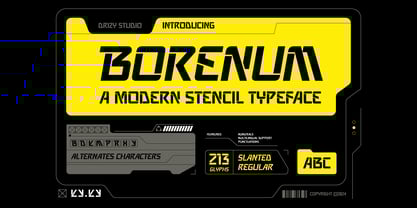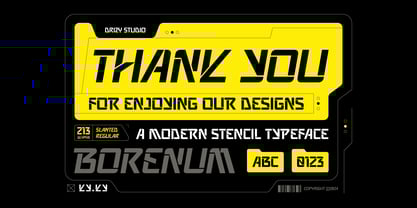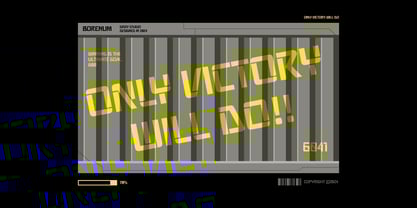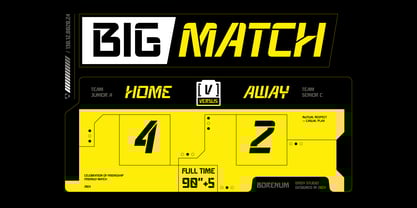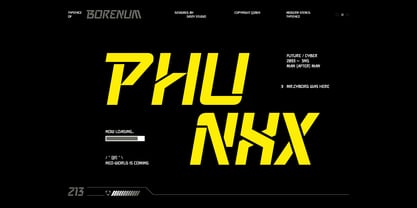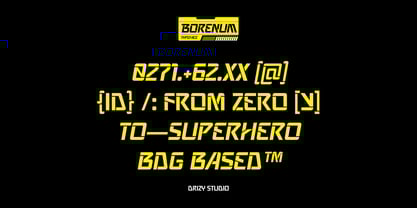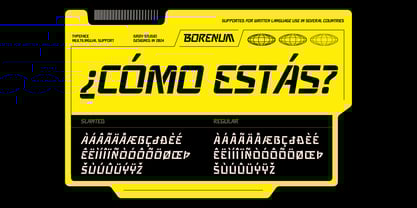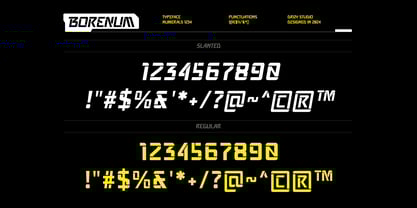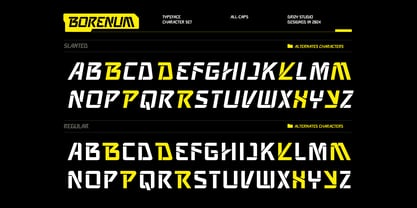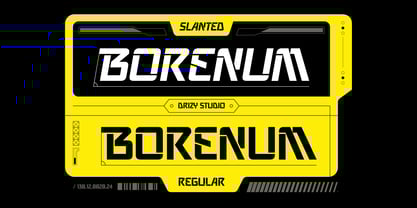
Borenum
by Drizy Font
The Borenum Font Family was designed by Panca Ahmadi Hasan and published by Drizy Font. Borenum contains 2 styles and family package options.
Borenum – Modern Stencil Font Display Font
Borenum is a bold and dynamic typeface crafted to elevate your Esports Designs. With it’s sharp stencil cuts and sleek, modern appeal, this font exudes power, precision, and energy perfect for gaming logos, team branding, tournament posters, and more. It’s versatile structure allows you to create captivating titles and eye-catching layouts that resonate with competitive and tech savvy audiences. Unleash your creative prowess and make a statement with Borenum, the font designed to dominate the digital arena!
Borenum features:
• Character Set (All Caps)
• Punctuation & Numbers
• Multilingual
• Regular & Slanted
• Alternates “B, D, P, R”